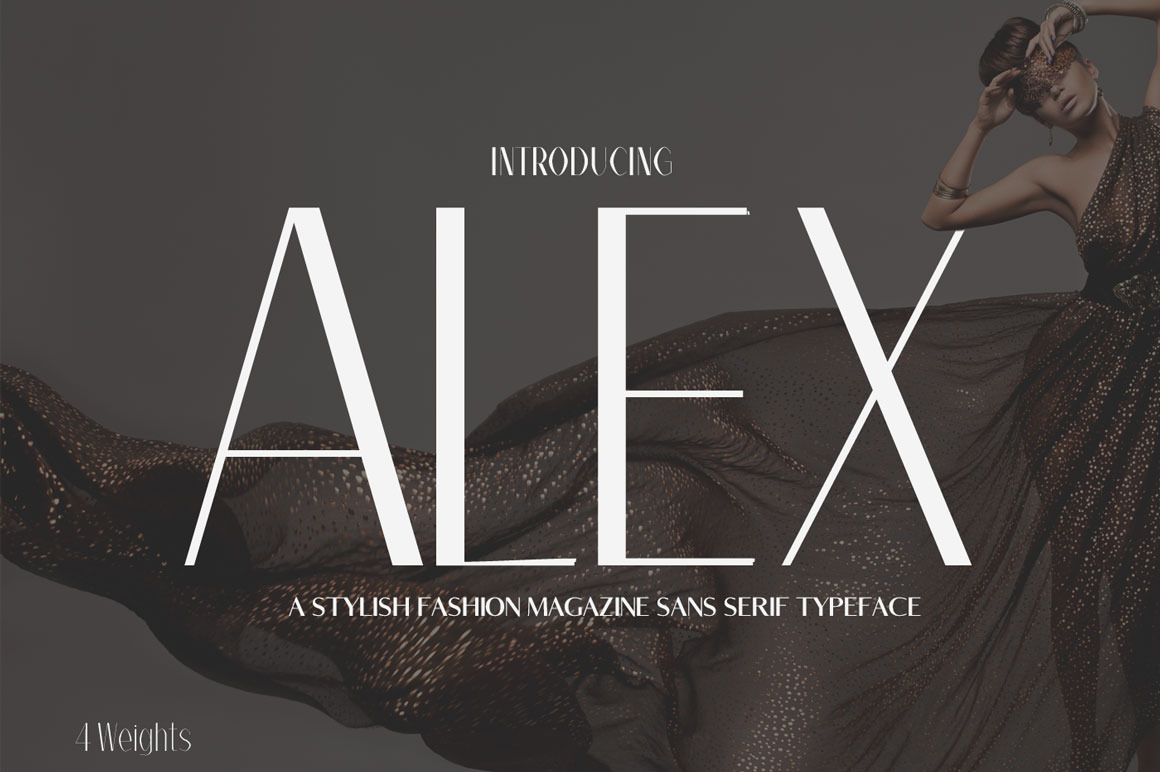
Alex Sans Serif Font Family
Alex Sans Serif Font Family is perfect for modern corporate identity, clean web design, professional mobile interfaces, contemporary branding projects, business documentation, tech startup communications, digital advertising campaigns, and minimalist marketing materials.
Alex Sans Serif Font Family is exciting because it delivers exceptional geometric clarity with subtle humanist characteristics, featuring streamlined letterforms and precise spacing that create powerful visual impact while maintaining optimal readability. Its contemporary character projects reliability and innovation across all communication platforms.
Alex Sans Serif Font Family family includes light, regular, medium, and bold weights with corresponding italic variations, offering designers eight meticulously crafted font styles for comprehensive typographic solutions and flexible brand expression.
Alex Sans Serif Font Family Free Download represents cutting-edge typography specifically designed for contemporary digital-first communication needs. This expertly engineered typeface collection showcases superior craftsmanship through its perfectly balanced character proportions and cross-platform optimization that guarantees consistent brand representation across all devices and media formats. The font's clean architecture makes it particularly suitable for technology companies, financial services, consulting firms, and design agencies seeking professional visual identity solutions that balance modernity with trustworthiness.
Professional designers consistently choose Alex Sans Serif Font Family for its outstanding performance in screen-based applications and user interface design. The font's optimized rendering capabilities and carefully adjusted curves deliver crystal-clear display quality from mobile screens to large format presentations. Its versatile weight range provides excellent foundation for complex information hierarchies and responsive design requirements across diverse digital environments.
Contemporary organizations appreciate Alex Sans Serif Font Family's ability to communicate professionalism while maintaining accessibility and modern appeal. Its adaptable nature works equally well in conservative corporate settings and progressive creative environments, making it an essential typography resource for businesses seeking to establish credible, contemporary brand presence through superior typographic communication and reliable performance standards.